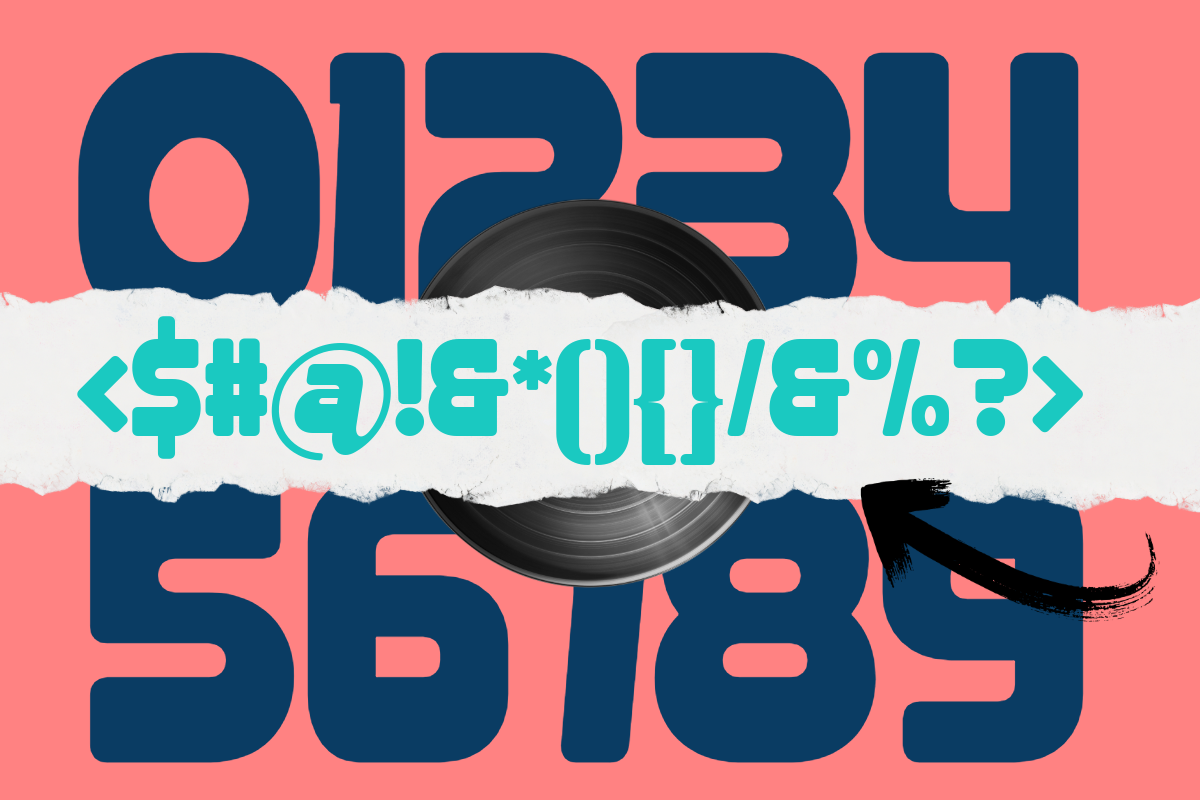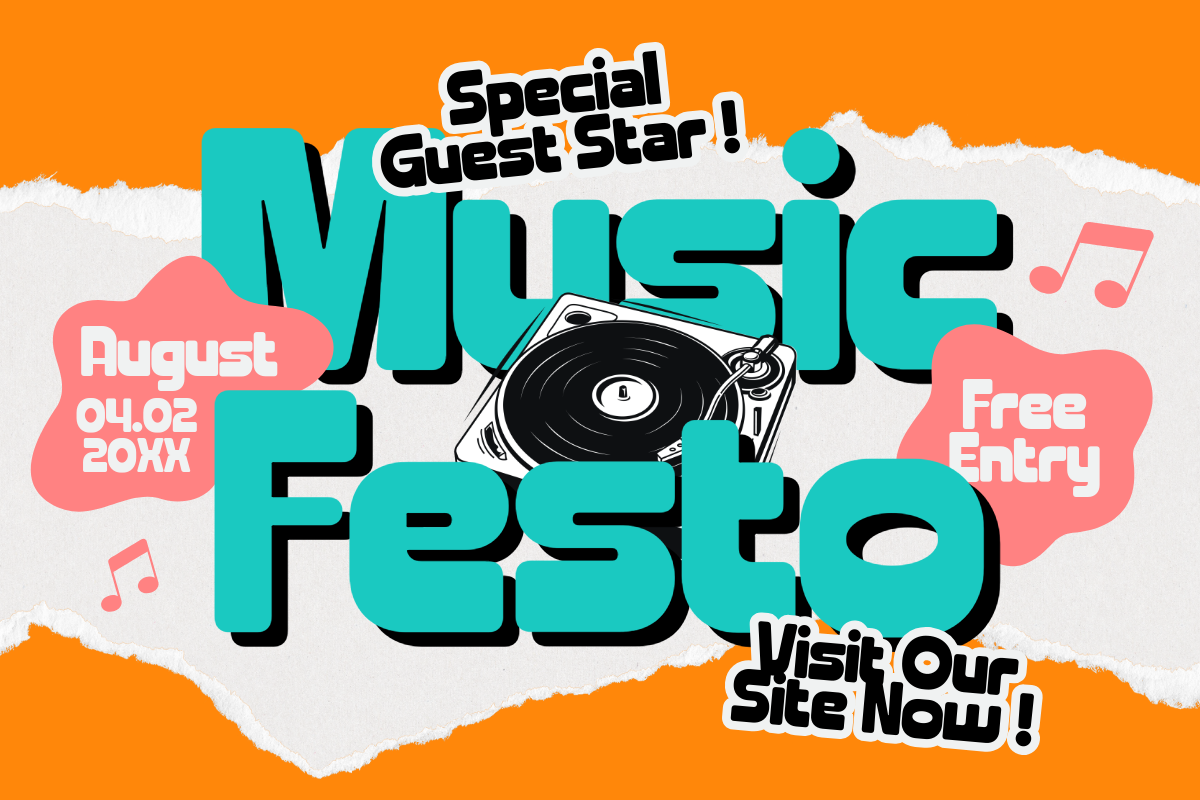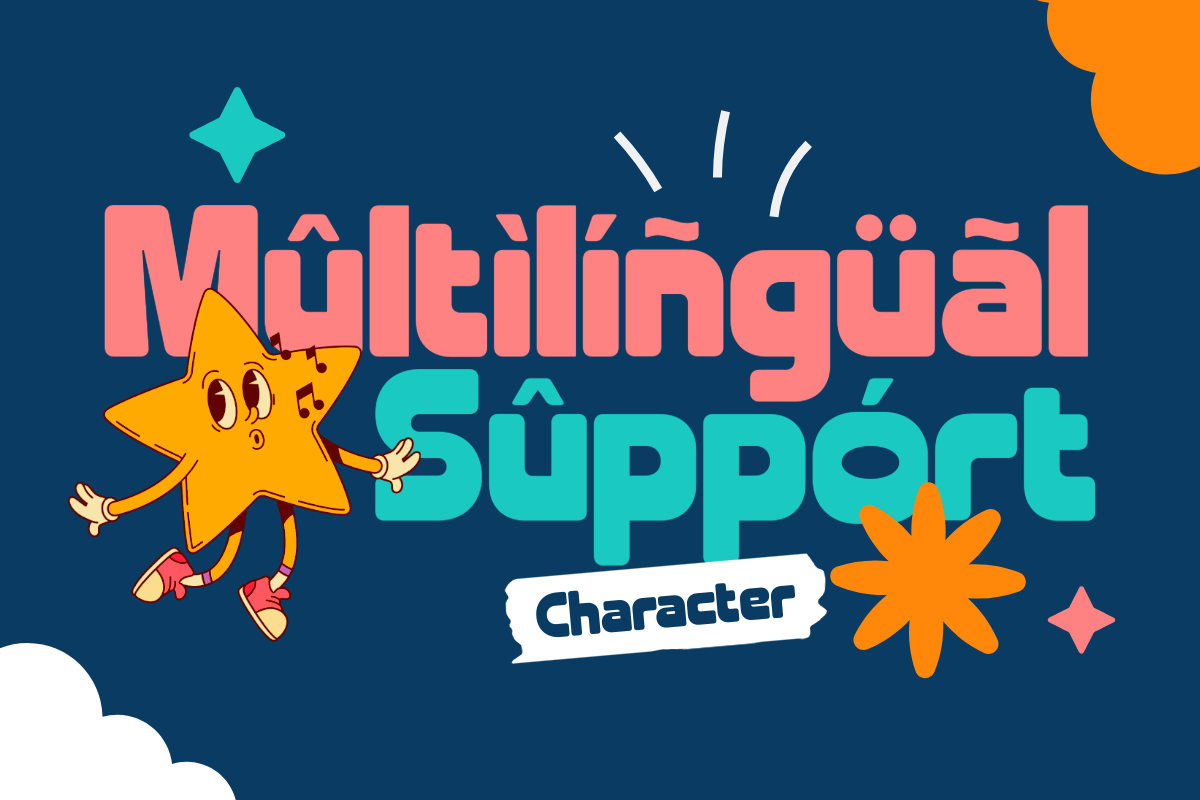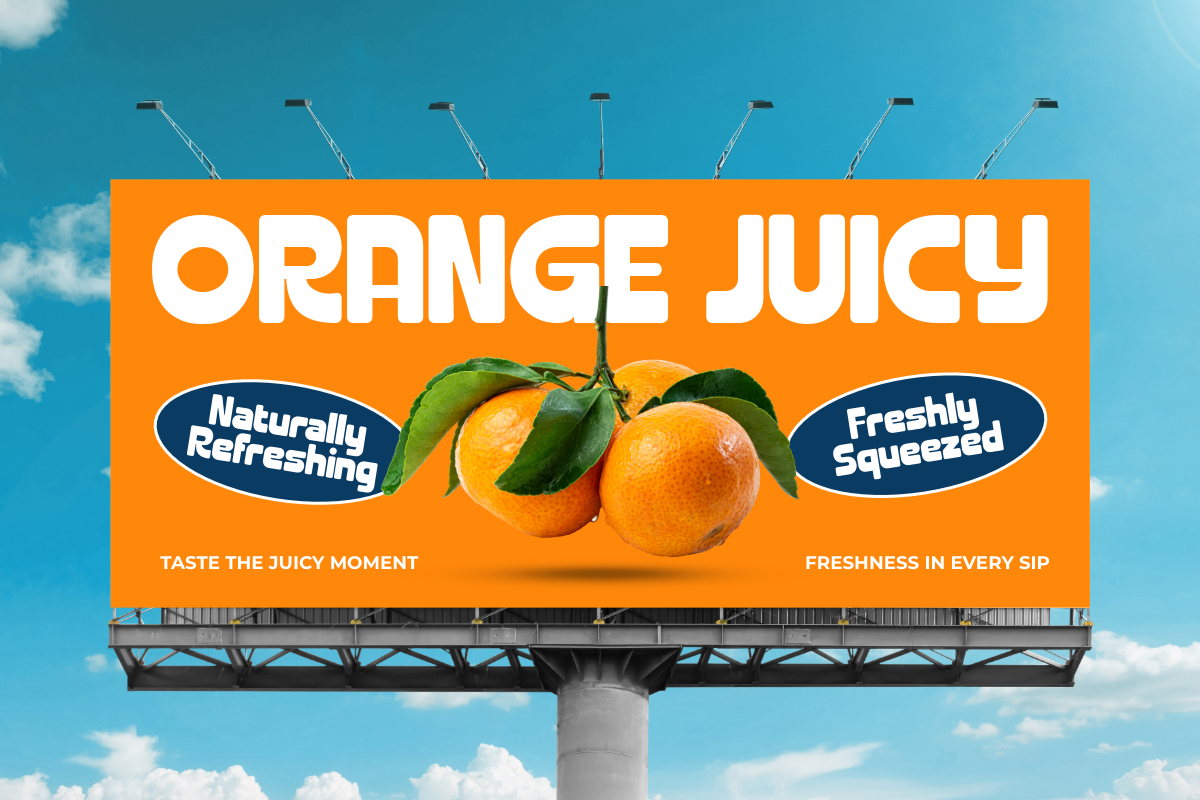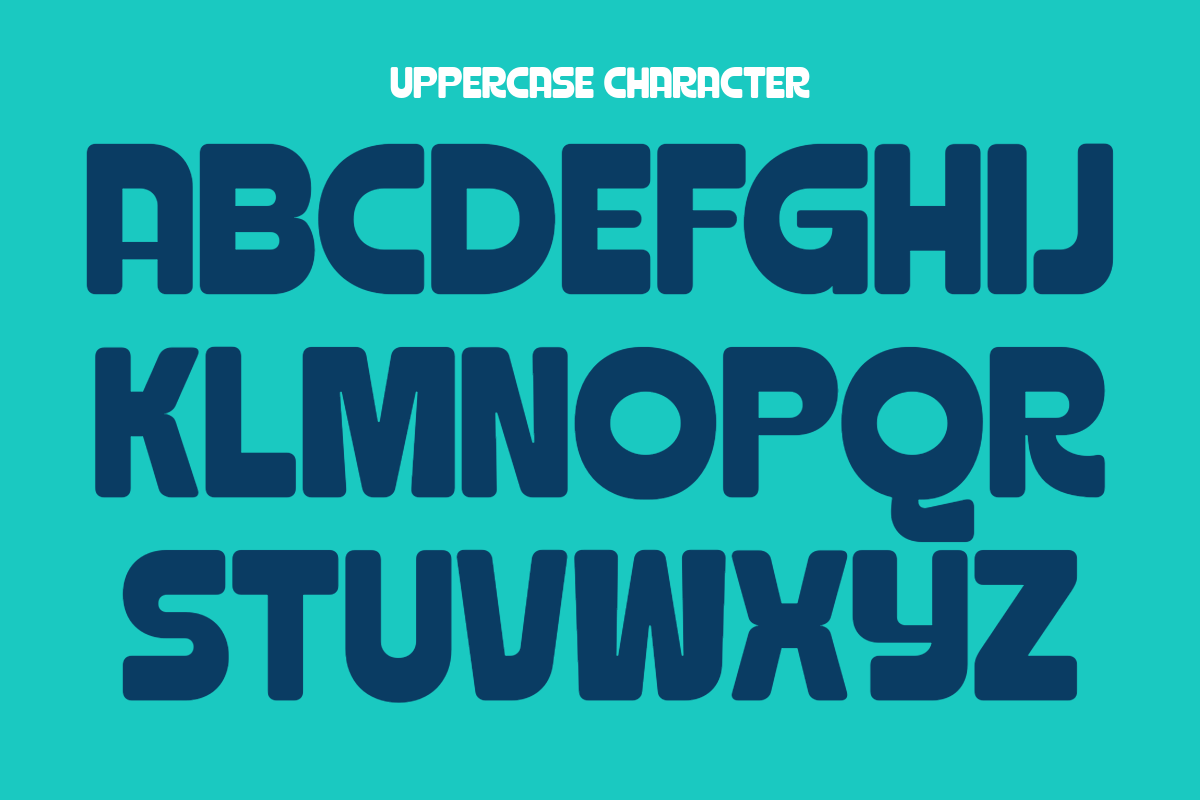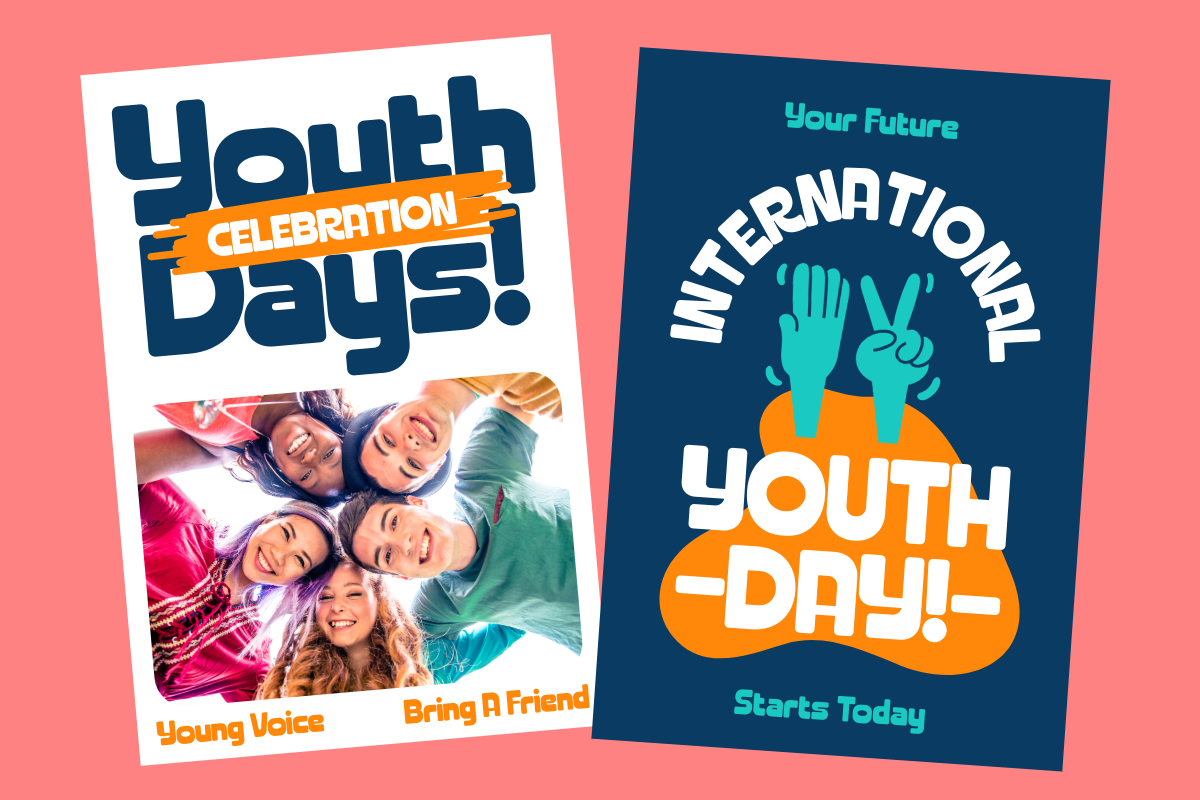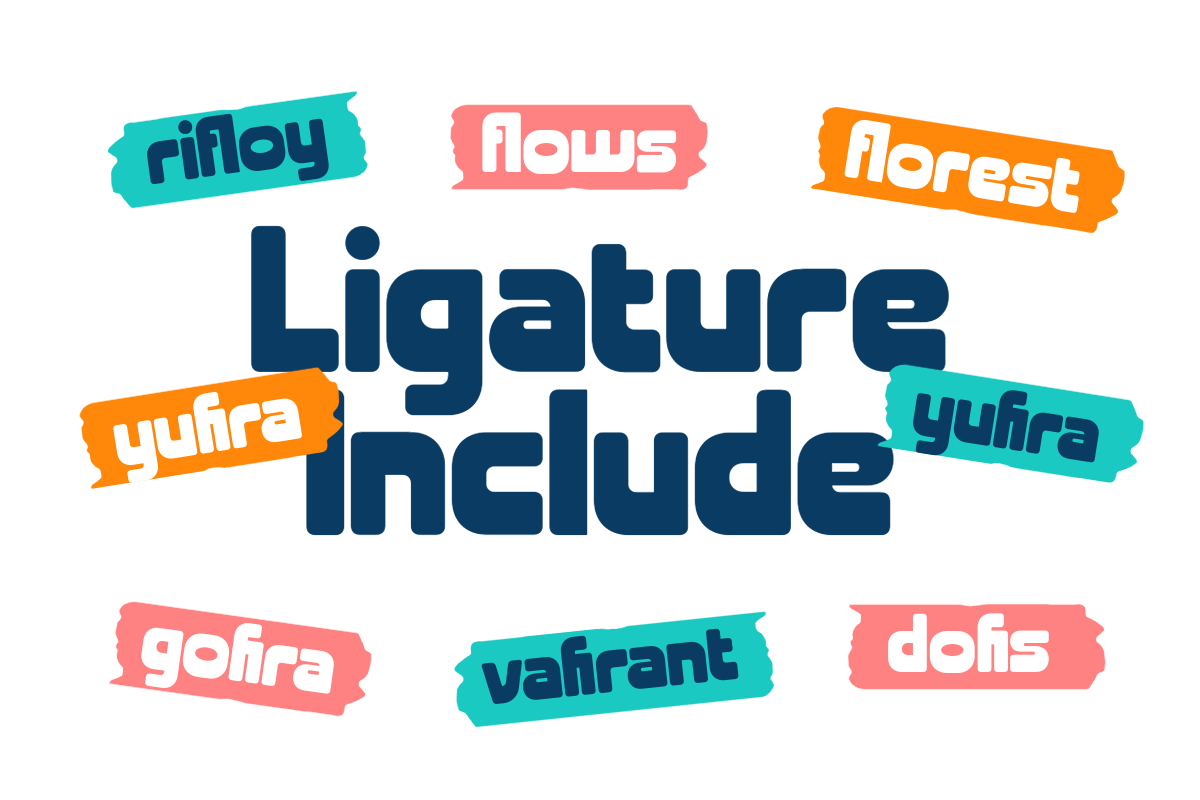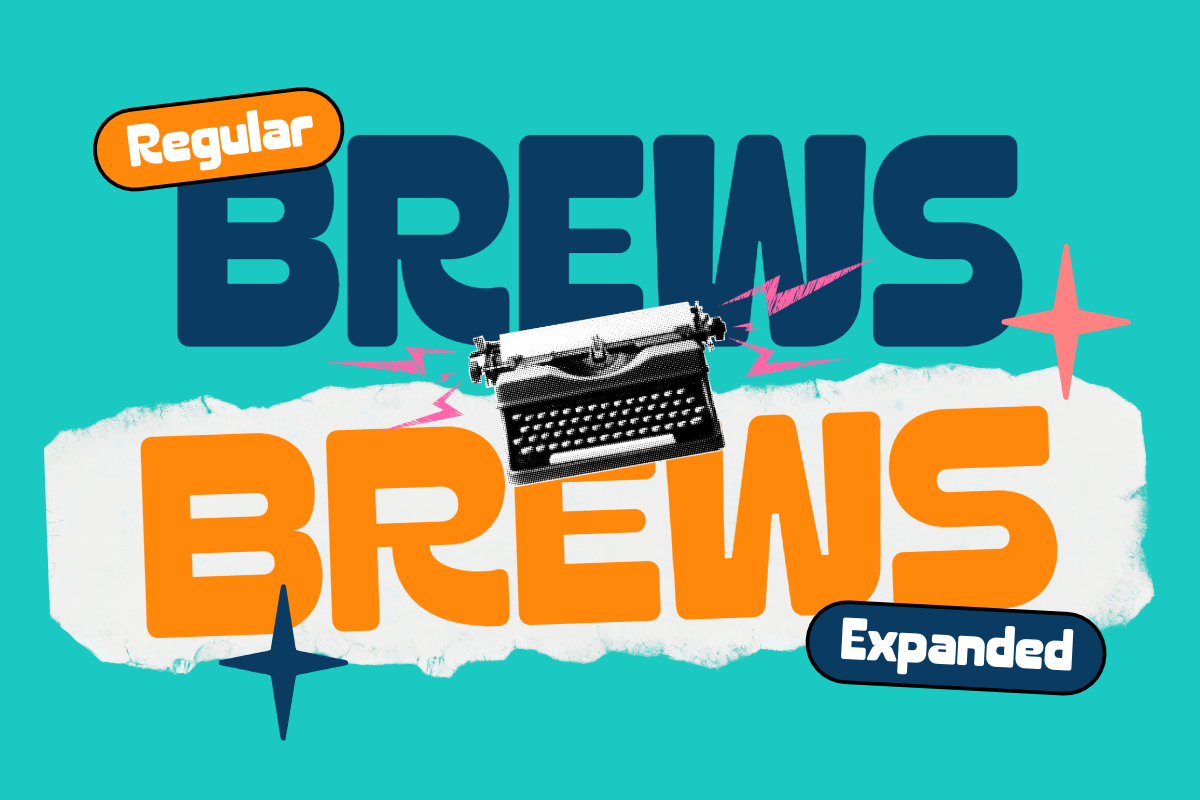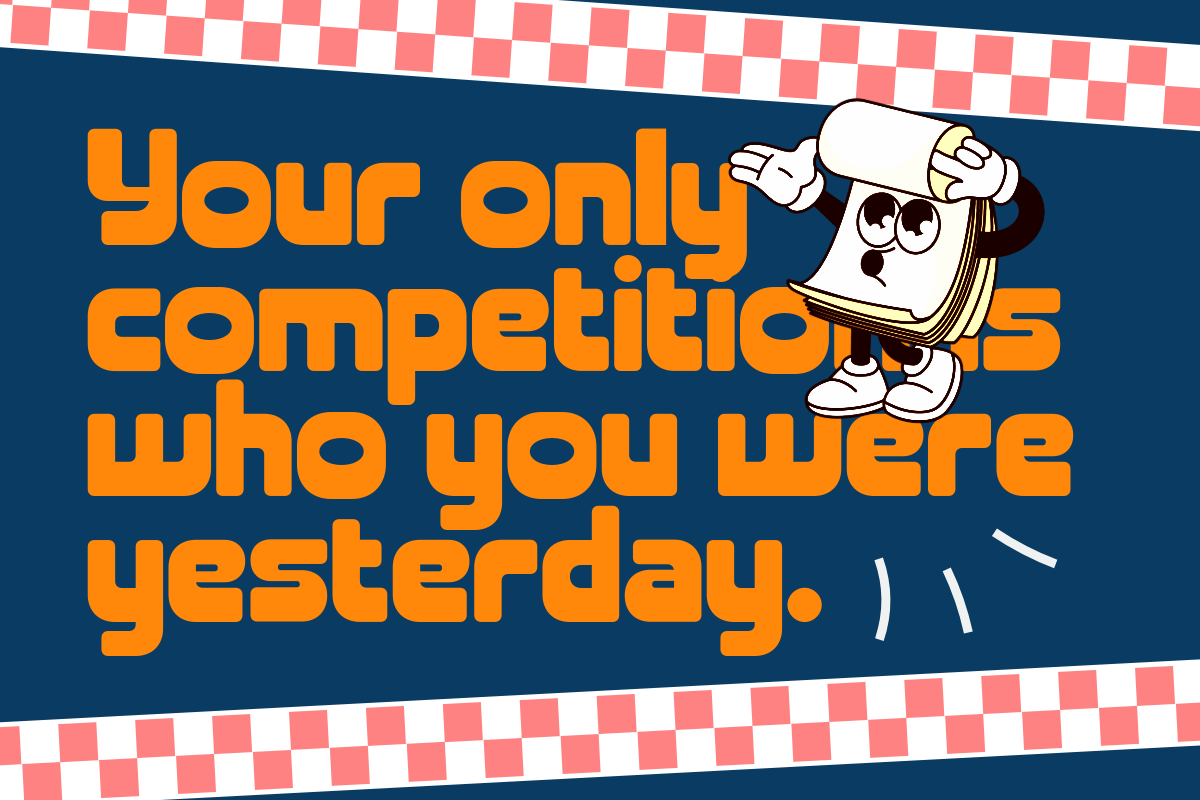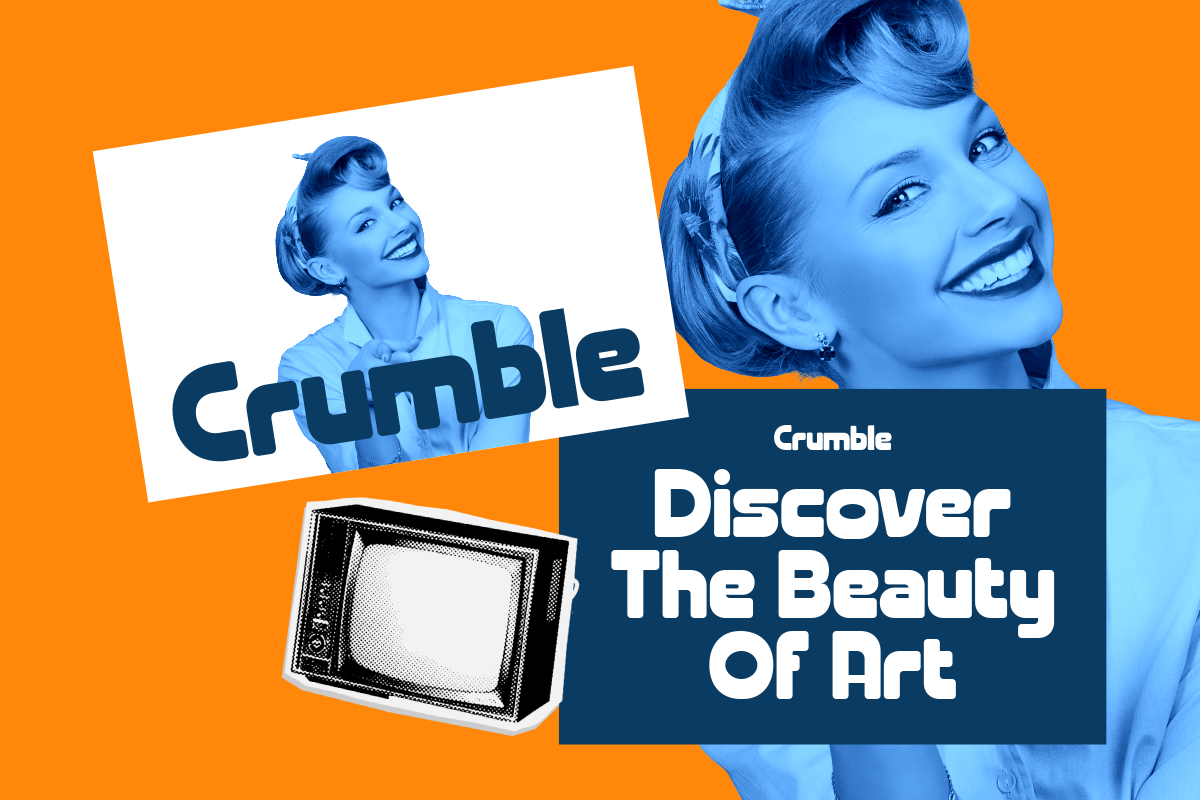
Westbrew
This font is a bold geometric display font with rounded, chunky letterforms and a playful retro-futuristic character. It combines heavy weight, smooth curves, compact proportions, and distinctive geometric details to create a strong yet friendly visual identity.
The overall look feels youthful, expressive, modern, and slightly cartoon-inspired, making it especially effective for large headlines and branding where the typography needs to become a major visual element.
Font Characteristics
Bold and heavy letterforms
Rounded geometric shapes
Chunky and compact proportions
Soft corners with strong structure
Playful and youthful personality
Retro-futuristic appearance
Cartoon-inspired details
Strong visual presence
Excellent for oversized headlines
Works well in uppercase and mixed-case typography
Recommended Uses
Youth branding
Music and entertainment
Event posters
Food & beverage branding
Café and restaurant designs
Streetwear
Packaging
Stickers and merchandise
Logo and wordmark concepts
Festival and party promotions
Creative agency branding